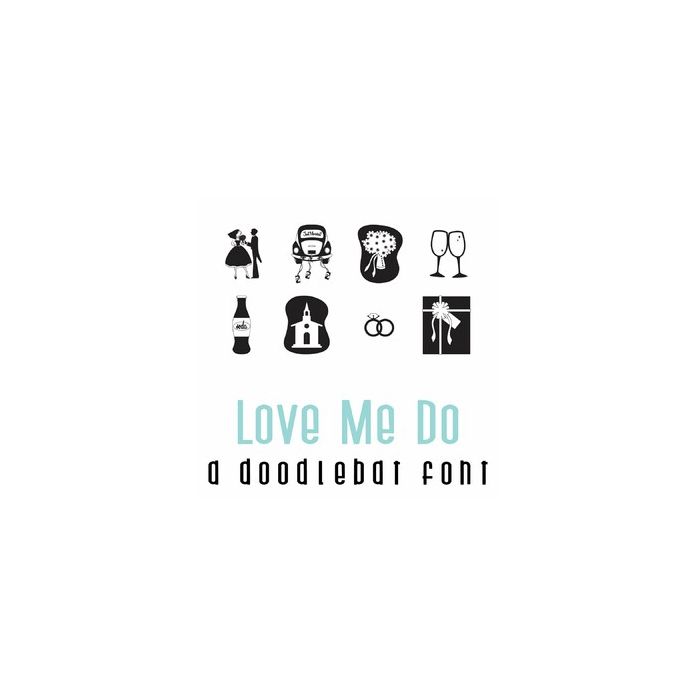
This fun doodlebat font features 26 wedding and love-themed imagery perfect for cards, crafts, gifts, decor, scrapbook pages, planner stickers, and more!